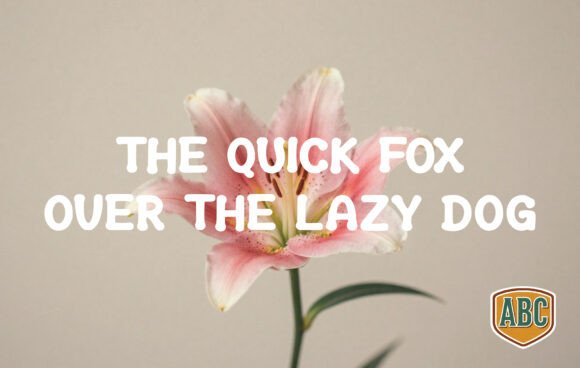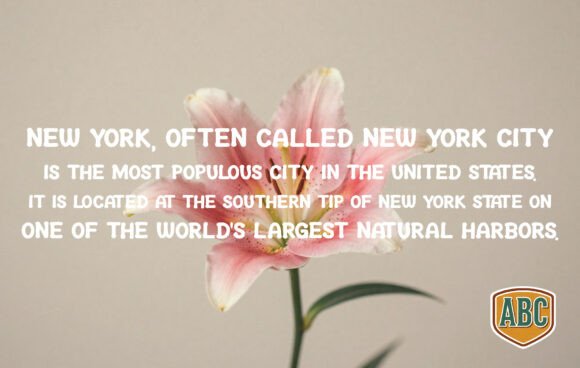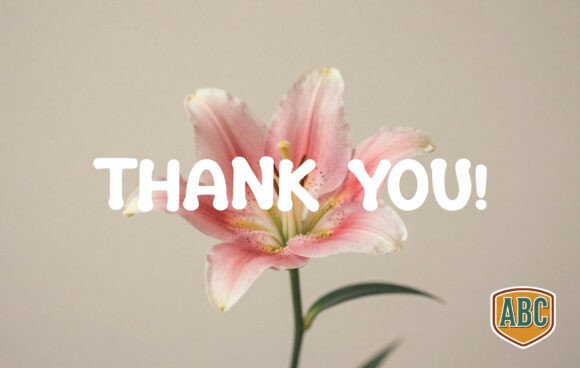
Introduction to Lily Font
Have you ever stared at a blank design canvas, unsure of where to start your next creative project? You’ve got a vision in your mind, but it’s just out of reach – until you stumble upon the perfect font. For designers, the right font can be the game-changer that brings your high-quality design to life. And when it comes to making a statement, the Lily Font is a standout choice.
This beautiful, bold sans-serif typeface is more than just a pretty face – it’s a design resource that exudes confidence and charm. With its thick-set, bubble-style curves, the Lily Font is perfect for high-impact headlines, beauty product packaging, and feminine branding that needs to feel substantial yet gentle.
Whether you’re working on a free download or a paid design project, the Lily Font is a valuable asset that can elevate your creative work. Plus, its versatility shines through in both pastel and bright color palettes, giving it a timeless “pop-art” feel that’s sure to grab attention. With a transparent background and smooth, rounded curves, this font is a must-have for any designer looking to add a touch of elegance and sophistication to their work.
Key Features of Lily Font
- High-quality vector design with a transparent background, ideal for creative projects and presentations.
- Comes in a single size, making it easy to use in a variety of design contexts, from small icons to large typography.
- Designed with a clean and elegant aesthetic, making it a valuable resource for designers seeking a high-quality design element.
- Resolution-independent, ensuring that the font remains crisp and clear regardless of the screen resolution or print size.
- Perfect for use as a design element in digital projects, such as web design, graphic design, and UI/UX design.
Honest Review: Lily Font
As a designer, I’m always on the lookout for high-quality design resources that can elevate my creative projects. Recently, I had the chance to try out the Lily Font, and I’m excited to share my honest review.
- The Lily Font is incredibly versatile, with a wide range of styles and sizes that can be easily customized to suit any project.
- The transparent background option is a game-changer, allowing for seamless integration into any design.
- The Lily Font may not be the most original or unique design, as it’s available for free and can be easily found online.
Overall, I’m impressed with the Lily Font’s design and versatility. While it may have some limitations, it’s an excellent resource for designers working on personal or non-commercial projects. With a little creativity, the Lily Font can help take your design projects to the next level.
Tips for Getting the Most Out of Lily Font
Some tips for getting the most out of Lily Font include using it in combination with other design elements, experimenting with different font sizes and styles, and using the font in conjunction with a transparent background to create a unique and eye-catching design.
Lily Font is commonly used in a wide range of creative projects, including social media graphics, presentations, and marketing materials. The font is also great for creating custom graphics and designs with a transparent background.